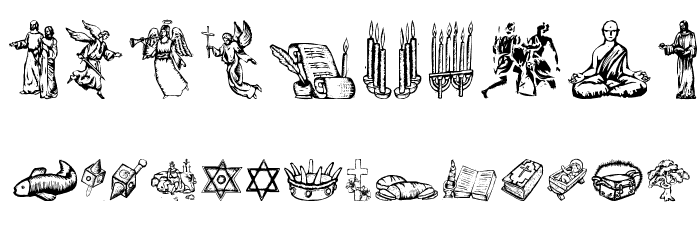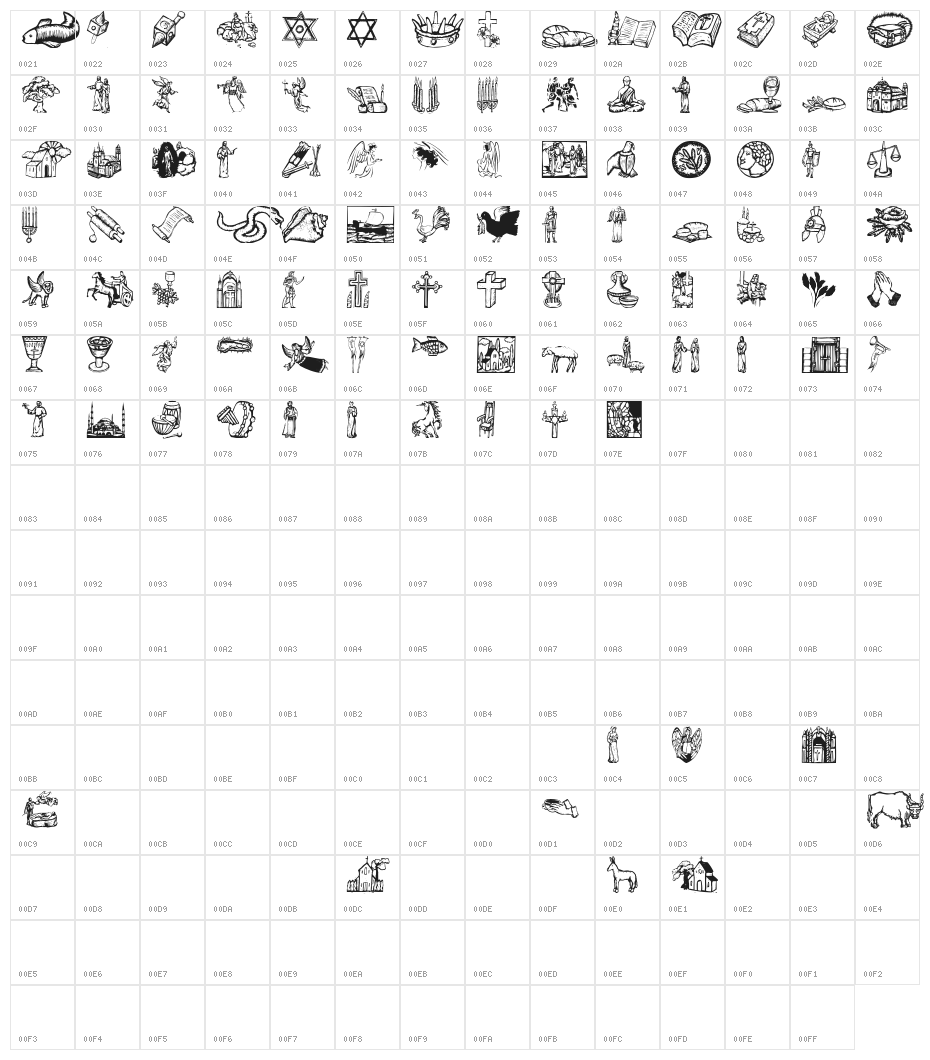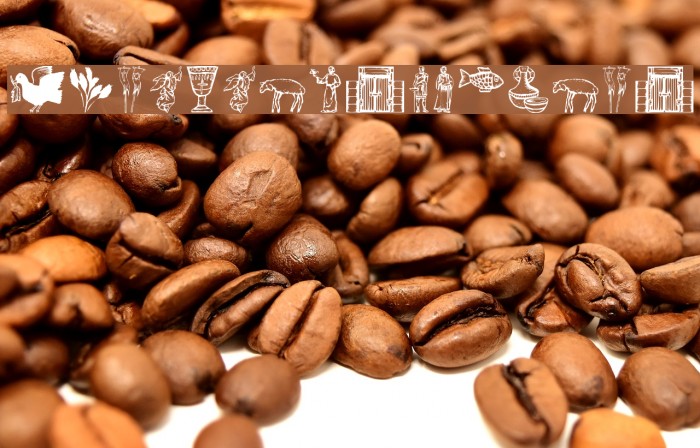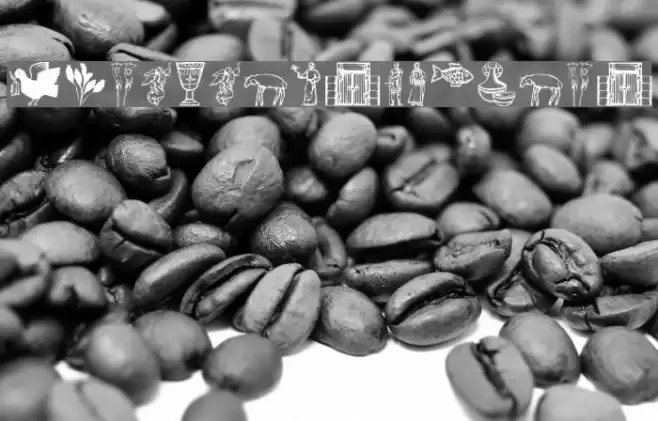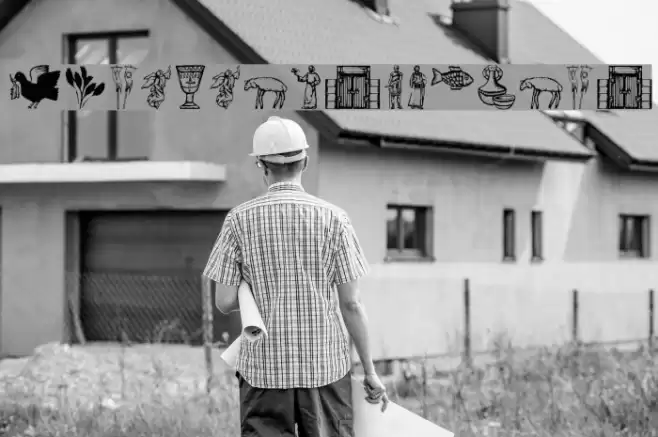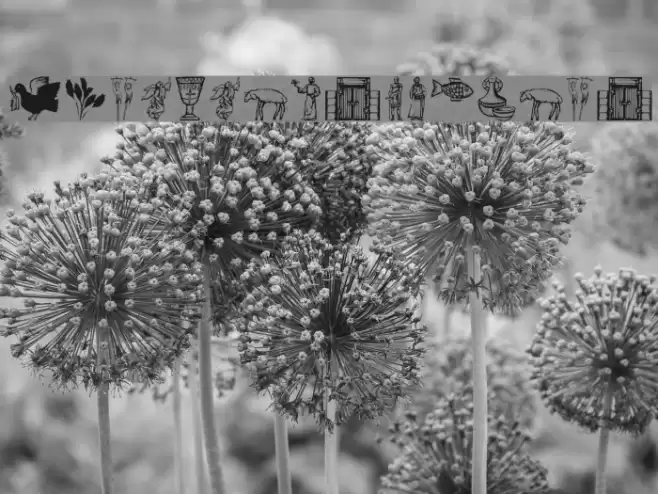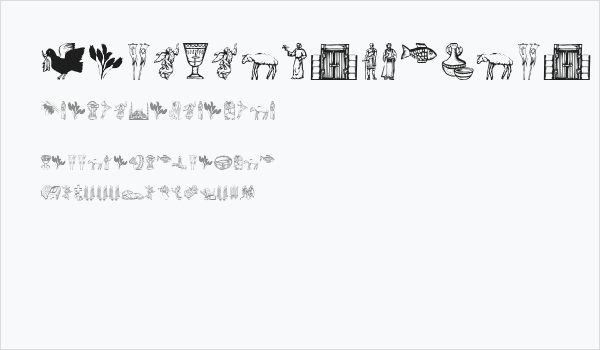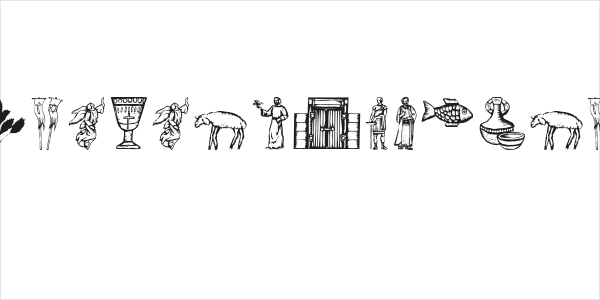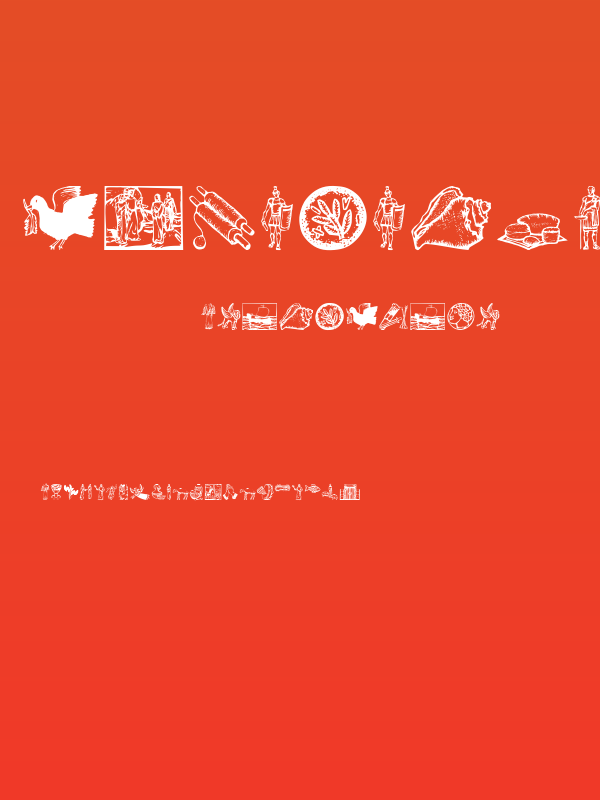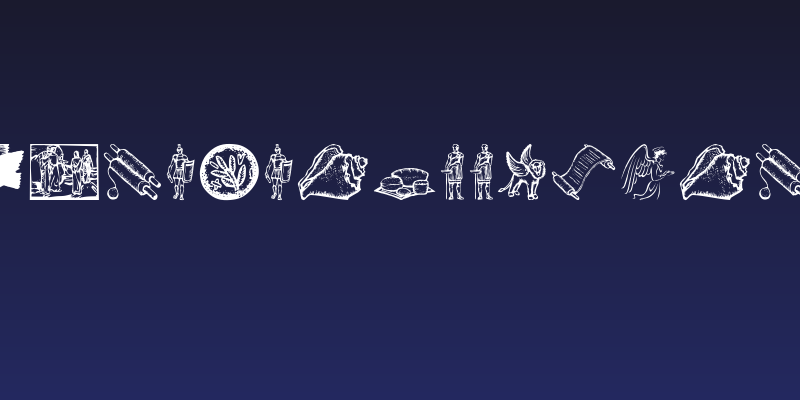
ReligiousSymbols Font
ReligiousSymbols Description
A decorative display font featuring detailed religious and spiritual symbols, including figures, objects, and iconography from various faiths. Each character is represented by a unique, intricate illustration rather than traditional letterforms.
| Overall Style | Decorative, Thematic, Illustrative |
| Use Case | Icons, Themed graphics, Decorative elements |
| Proposed Projects | Religious event posters, educational materials, spiritual greeting cards, themed graphic design, religious publications. |